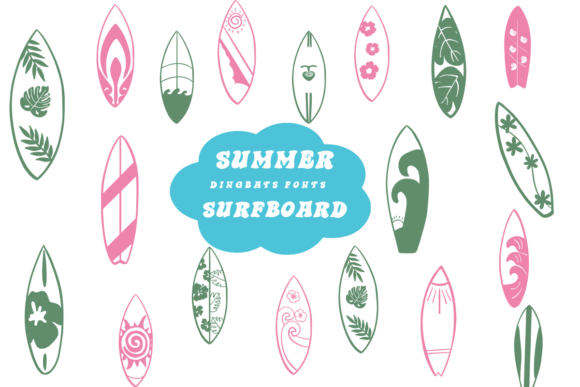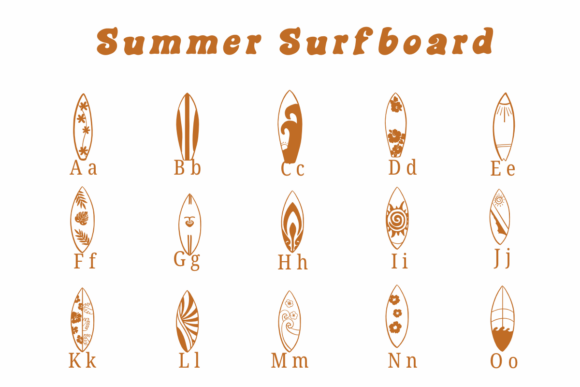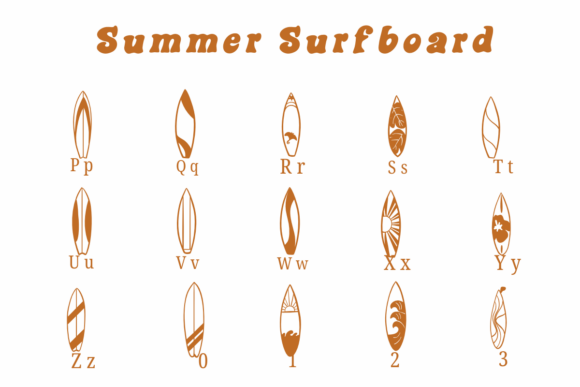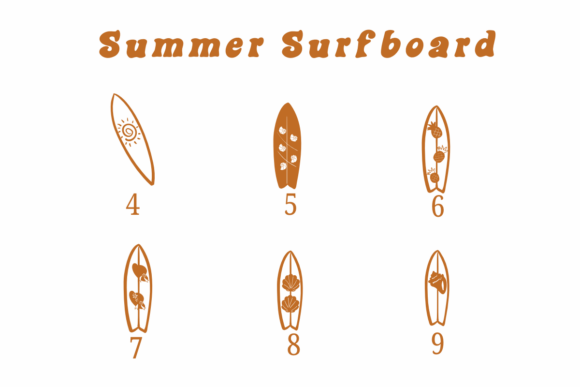
Summer Surfboard Font
About the Summer Surfboard Font
Experience the unique personality of Summer Surfboard Font, a font designed for impact. Summer surfboard is a dingbats font with a sketched style. This font can enhance your creative projects such as wedding invitations, DIY, crafts, decorations, logos, and many other creative ideas.
Summer Surfboard Font Usage Examples
Summer Surfboard Font Example